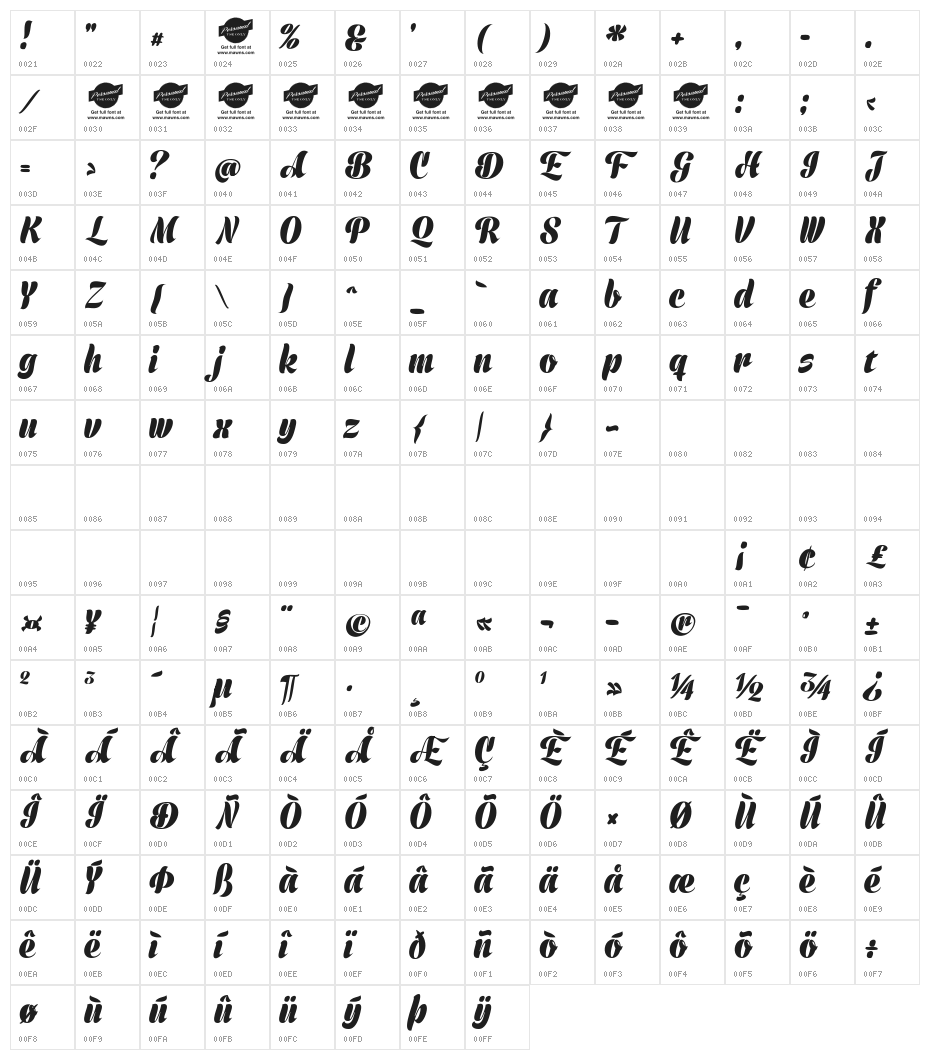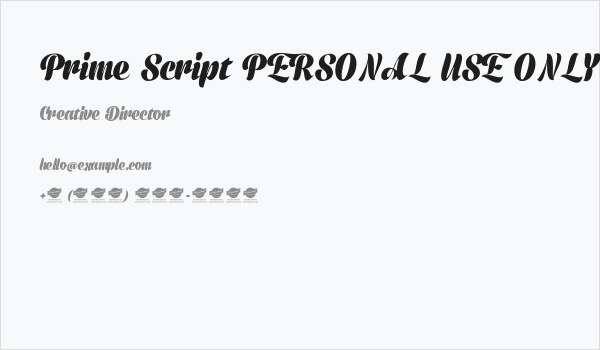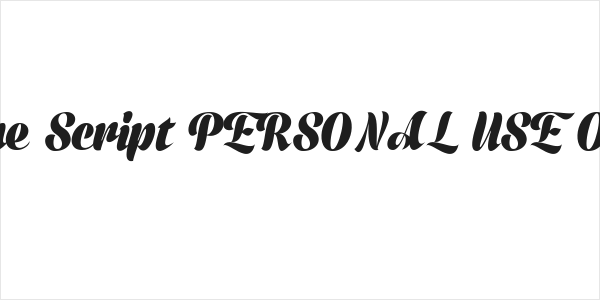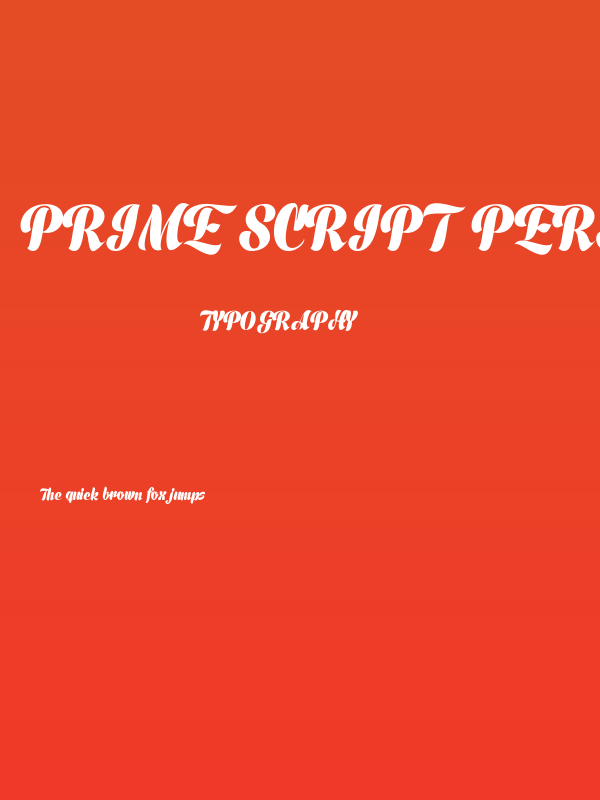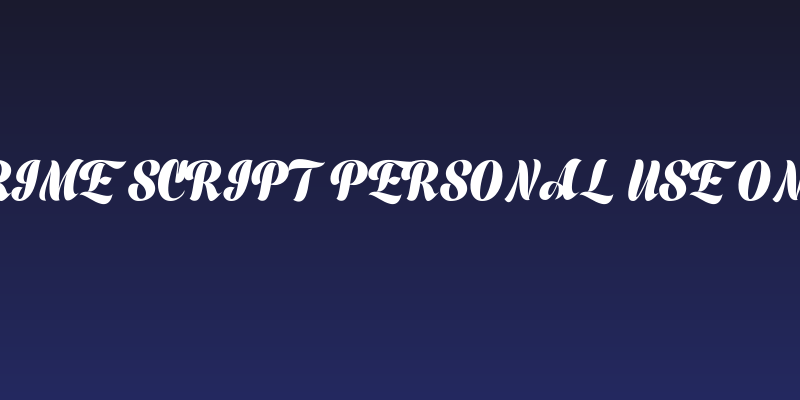
Prime Script PERSONAL USE ONLY Font
Prime Script PERSONAL USE ONLY Description
This font features a bold and flowing script style, characterized by its elegant and dynamic curves. The uppercase letters exhibit a strong presence with their sweeping lines and decorative flourishes, while the lowercase letters maintain a cohesive and fluid appearance. The numerals and special characters are designed to complement the overall aesthetic, ensuring consistency throughout. This font's bold strokes and high contrast make it stand out, ideal for creating impactful designs. Its artistic flair and sophisticated style make it suitable for a variety of creative applications.
| Proposed Projects | Ideal for wedding invitations, branding, logo design, and decorative headlines. |